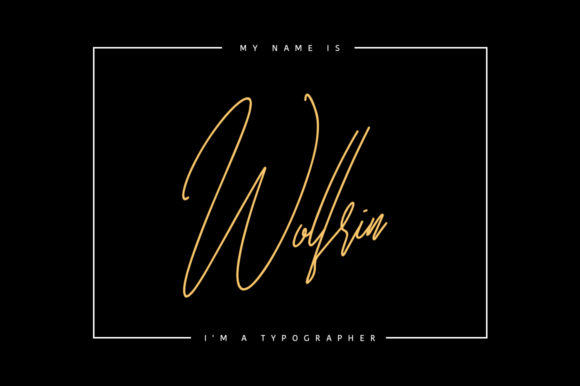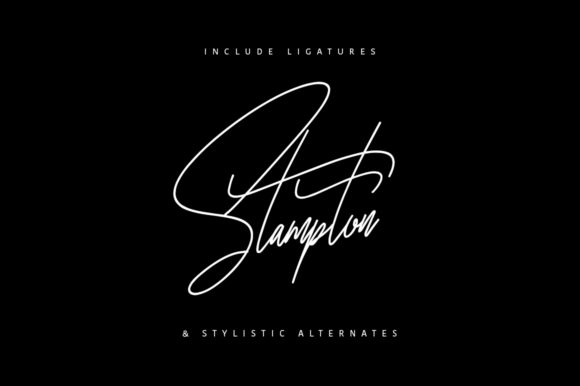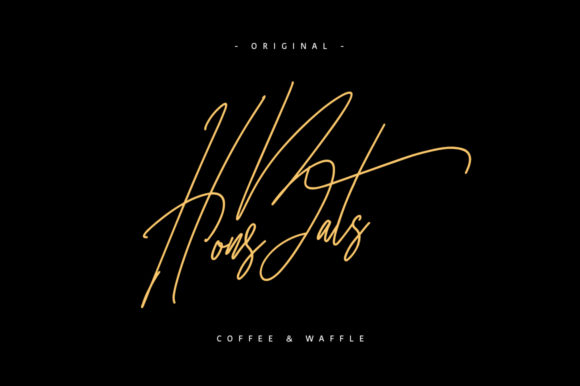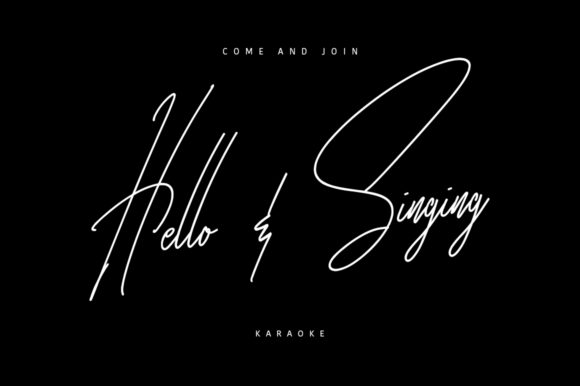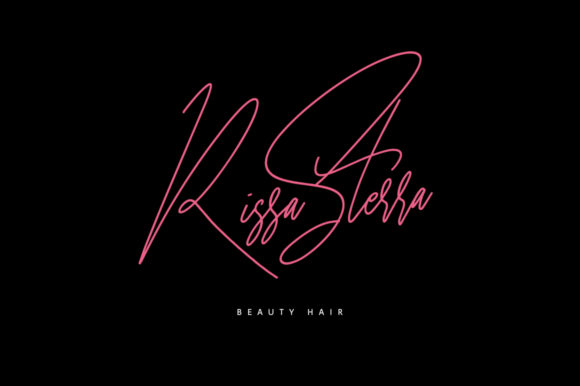
Bettarria Font: Elevate Your Design with a Touch of Glamour and Modernity
Are you on the lookout for a font that exudes glamour and modernity? Look no further than the stunning Bettarria Font. This beautiful script font is perfect for designers and crafters who want to add a touch of sophistication and elegance to their work. In this article, we’ll dive into the world of Bettarria Font and explore its features, uses, and benefits.
What is Bettarria Font?
Bettarria Font is a modern script font that boasts a unique and stylish design. Its elegant lines, flowing curves, and beautiful swashes make it perfect for a wide range of design projects. Whether you’re creating logos, social media posts, stationery, or any other type of visual content, Bettarria Font is sure to impress.
Key Features of Bettarria Font
So, what makes Bettarria Font so special? Here are some of its key features:
- Modern and Glamorous Design: Bettarria Font has a sleek and contemporary design that is sure to turn heads.
- Elegant Lines and Curves: The font features beautiful, flowing lines and curves that add a touch of sophistication to any design.
- Swashes and Flourishes: Bettarria Font comes with a range of swashes and flourishes that can be used to add a touch of elegance and drama to your designs.
- High-Quality and Versatile: The font is perfect for a wide range of design projects, from logos and branding to social media posts and stationery.
Uses of Bettarria Font
Bettarria Font is an incredibly versatile font that can be used for a wide range of design projects. Here are some ideas to get you started:
- Logos and Branding: Use Bettarria Font to create stunning logos and branding materials that exude glamour and modernity.
- Social Media Posts: Add a touch of elegance and sophistication to your social media posts with Bettarria Font.
- Stationery and Invitations: Use the font to create beautiful stationery, invitations, and greeting cards that are sure to impress.
- Packaging and Advertising: Bettarria Font is perfect for packaging and advertising materials that require a touch of glamour and sophistication.
Benefits of Using Bettarria Font
So, why should you choose Bettarria Font for your design projects? Here are some benefits:
- Unique and Eye-Catching: Bettarria Font is a unique and eye-catching font that is sure to turn heads.
- Easy to Read: Despite its elegant design, Bettarria Font is easy to read and understand, making it perfect for a wide range of design projects.
- Customizable: The font comes with a range of swashes and flourishes that can be used to customize your designs.
- High-Quality: Bettarria Font is a high-quality font that is perfect for professional design projects.
Tips for Using Bettarria Font
Here are some tips for using Bettarria Font in your design projects:
- Use it Sparingly: Bettarria Font is a bold and elegant font, so use it sparingly to avoid overwhelming your designs.
- Experiment with Swashes: The font comes with a range of swashes and flourishes, so experiment with different combinations to find the perfect look for your design.
- Pair it with Other Fonts: Bettarria Font can be paired with other fonts to create a unique and eye-catching design.
In conclusion, Bettarria Font is a stunning script font that is perfect for designers and crafters who want to add a touch of glamour and modernity to their work. With its elegant lines, flowing curves, and beautiful swashes, this font is sure to impress. Whether you’re creating logos, social media posts, stationery, or any other type of visual content, Bettarria Font is a great choice. So why not give it a try and see the difference it can make in your designs?